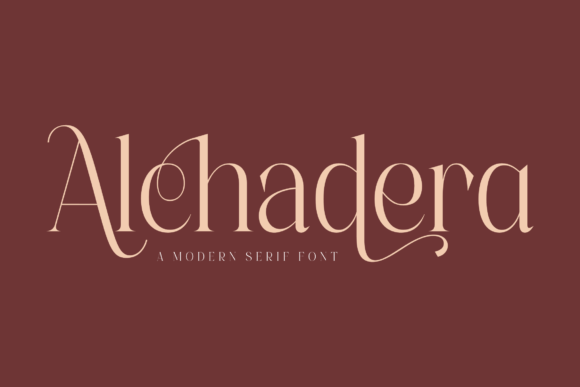
Unleash the Power of Expression with Alchadera: The Ultimate Serif Typeface for Designers
In a world saturated with digital noise, your designs need to stand out, to captivate, and to leave an indelible mark. Introducing Alchadera, the serif typeface that transforms your creative visions into tangible masterpieces.
Alchadera is more than just a font; it's an artistic tool that empowers you to craft logos that radiate elegance, fashion brands that exude sophistication, and movie titles that ignite imaginations. Its meticulously crafted curves and strokes dance across the screen, beckoning your audience to delve deeper into your visual narratives.
With Alchadera, you'll discover a world of typographic possibilities. Design book covers that whisper tales of mystery and intrigue, create posters that demand attention, and craft social media graphics that spark conversations. The possibilities are limitless, bound only by the depths of your creativity.
Alchadera is not just another font; it's a key that unlocks the door to a realm of captivating designs. Embrace its timeless charm and watch as your creations transform into works of art. Step into the spotlight of excellence and let Alchadera elevate your designs to new heights.